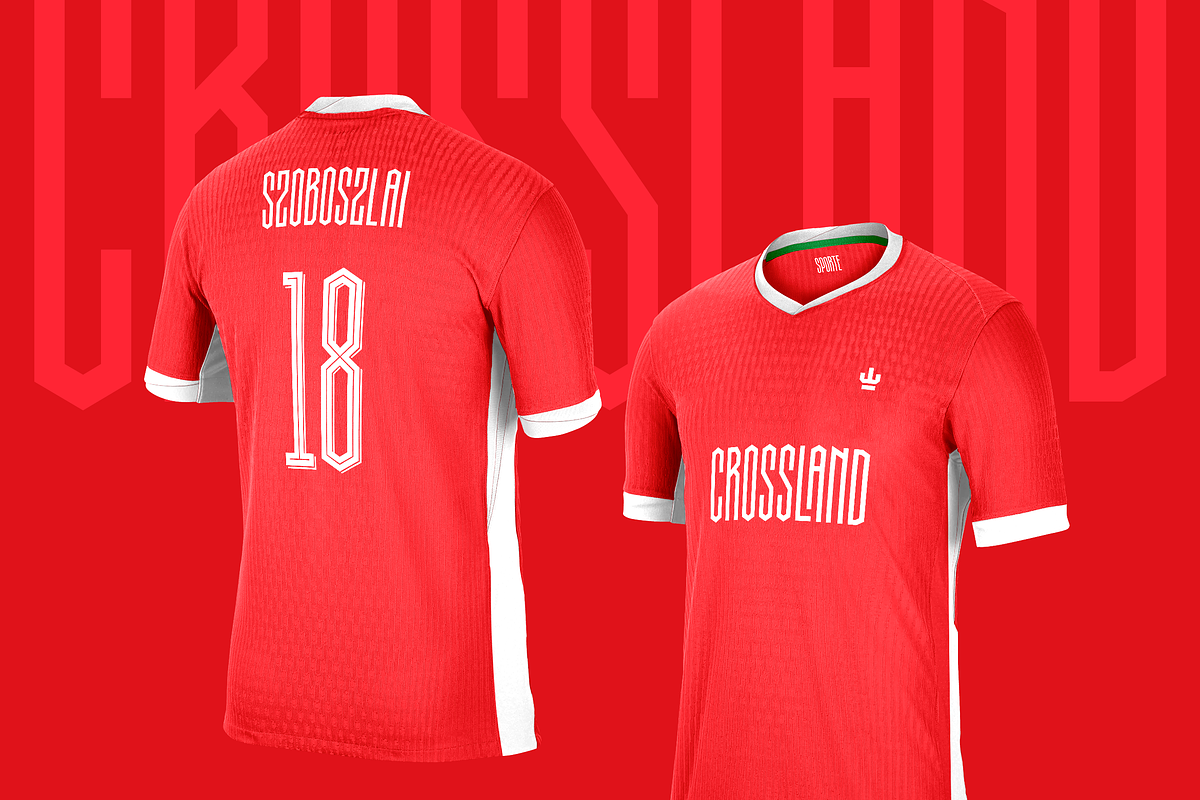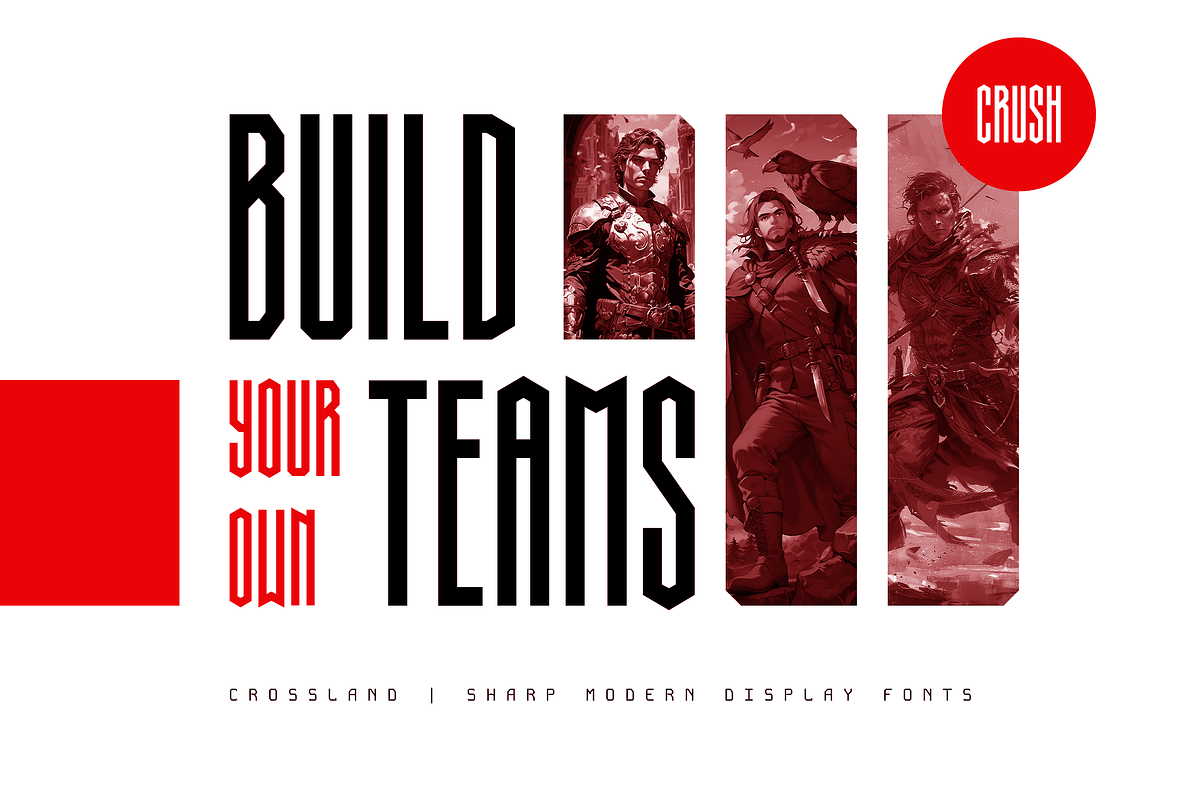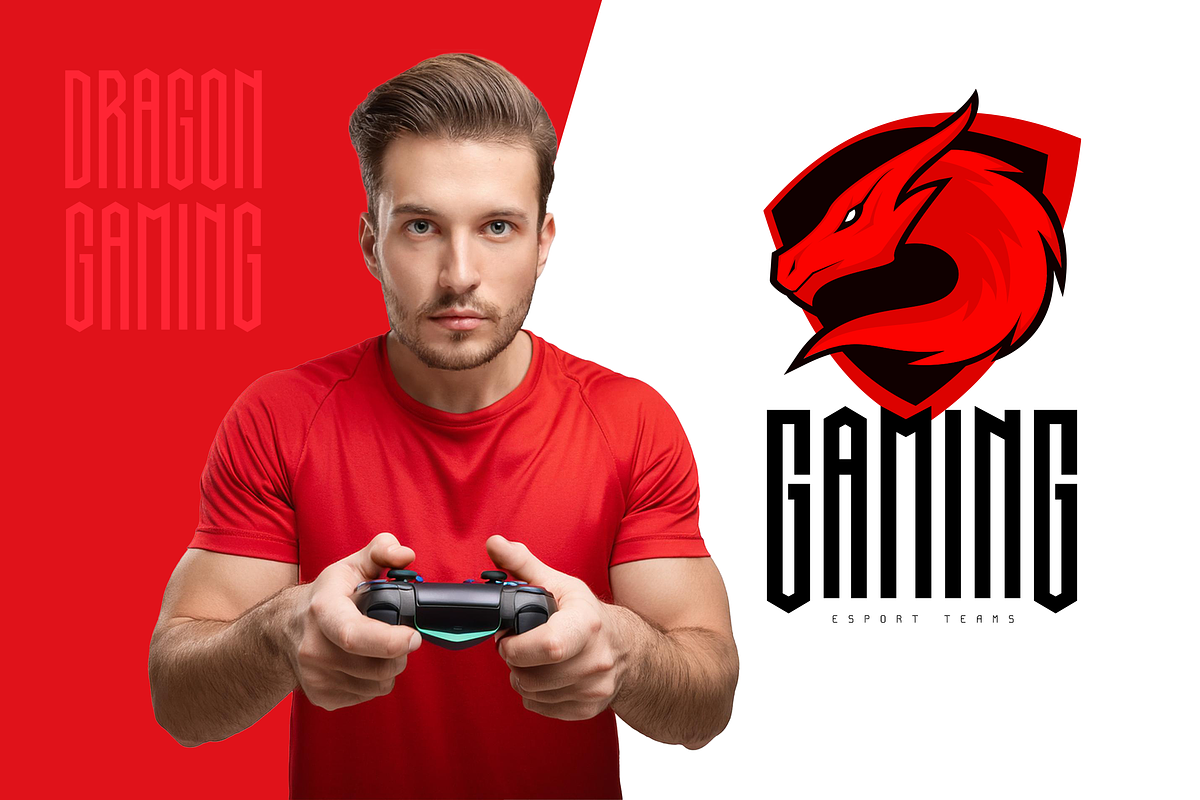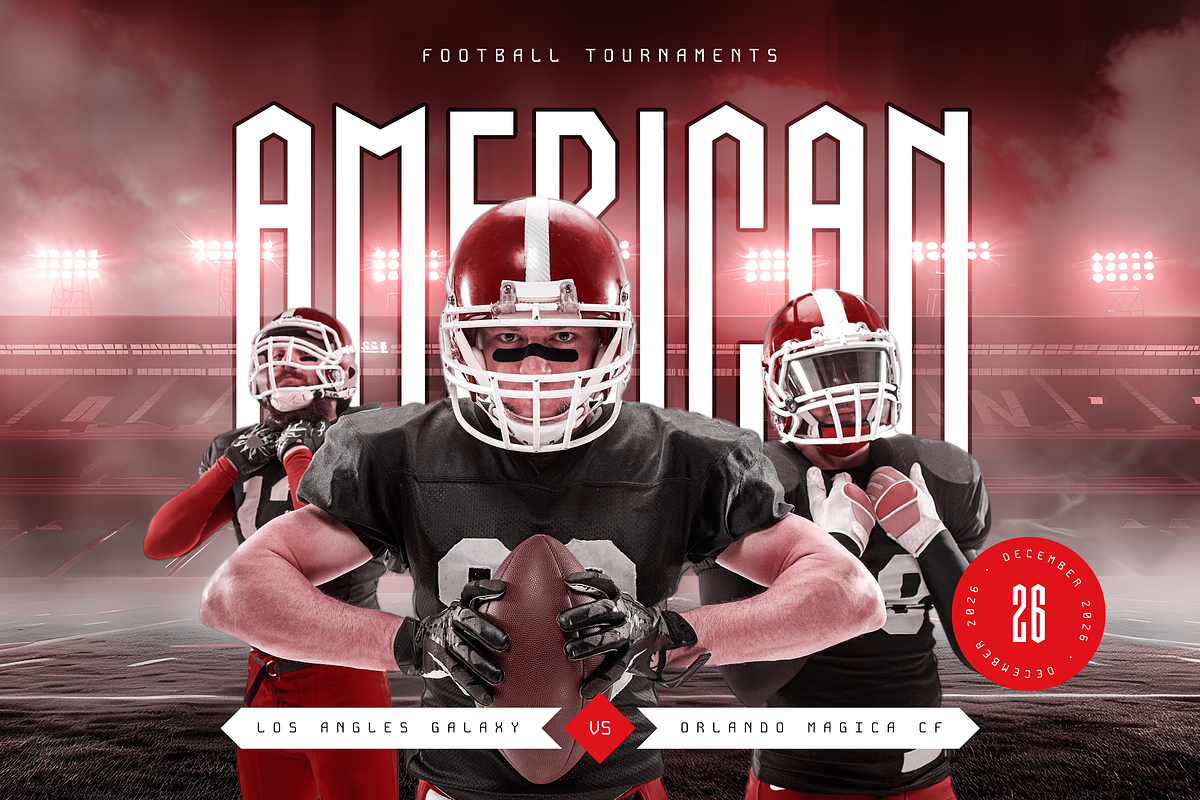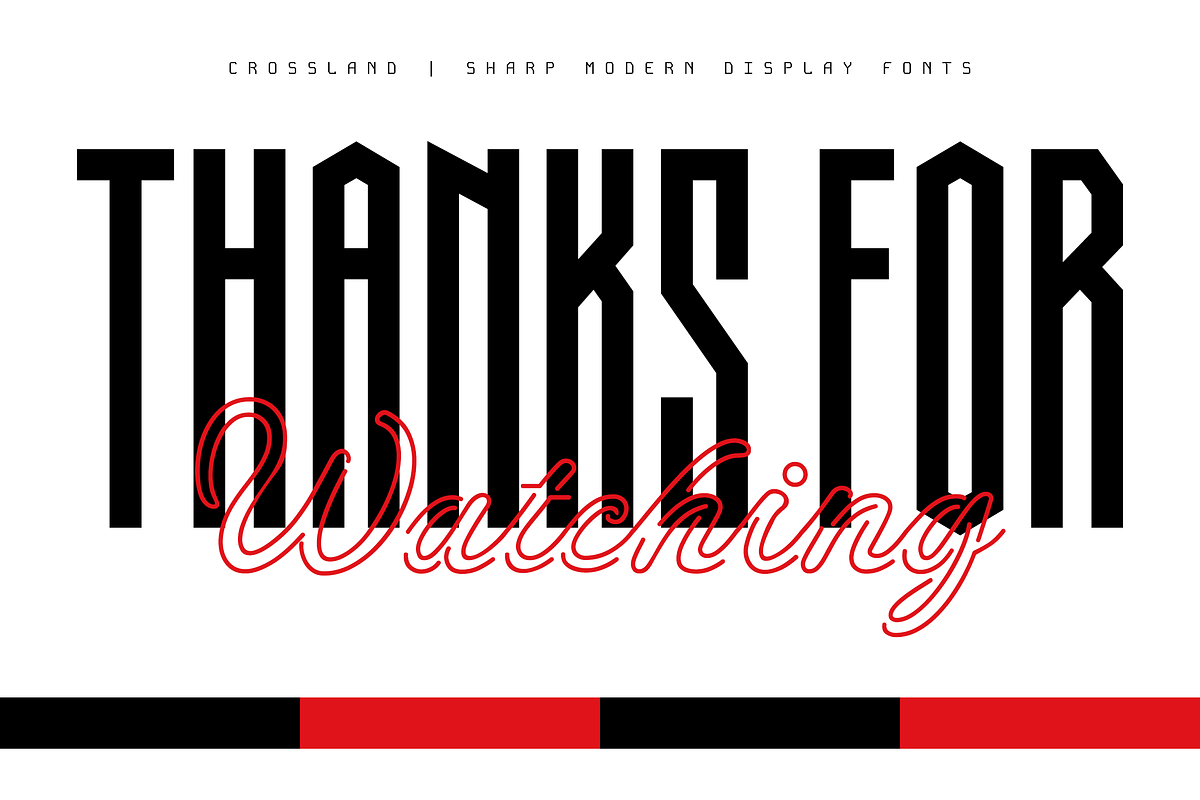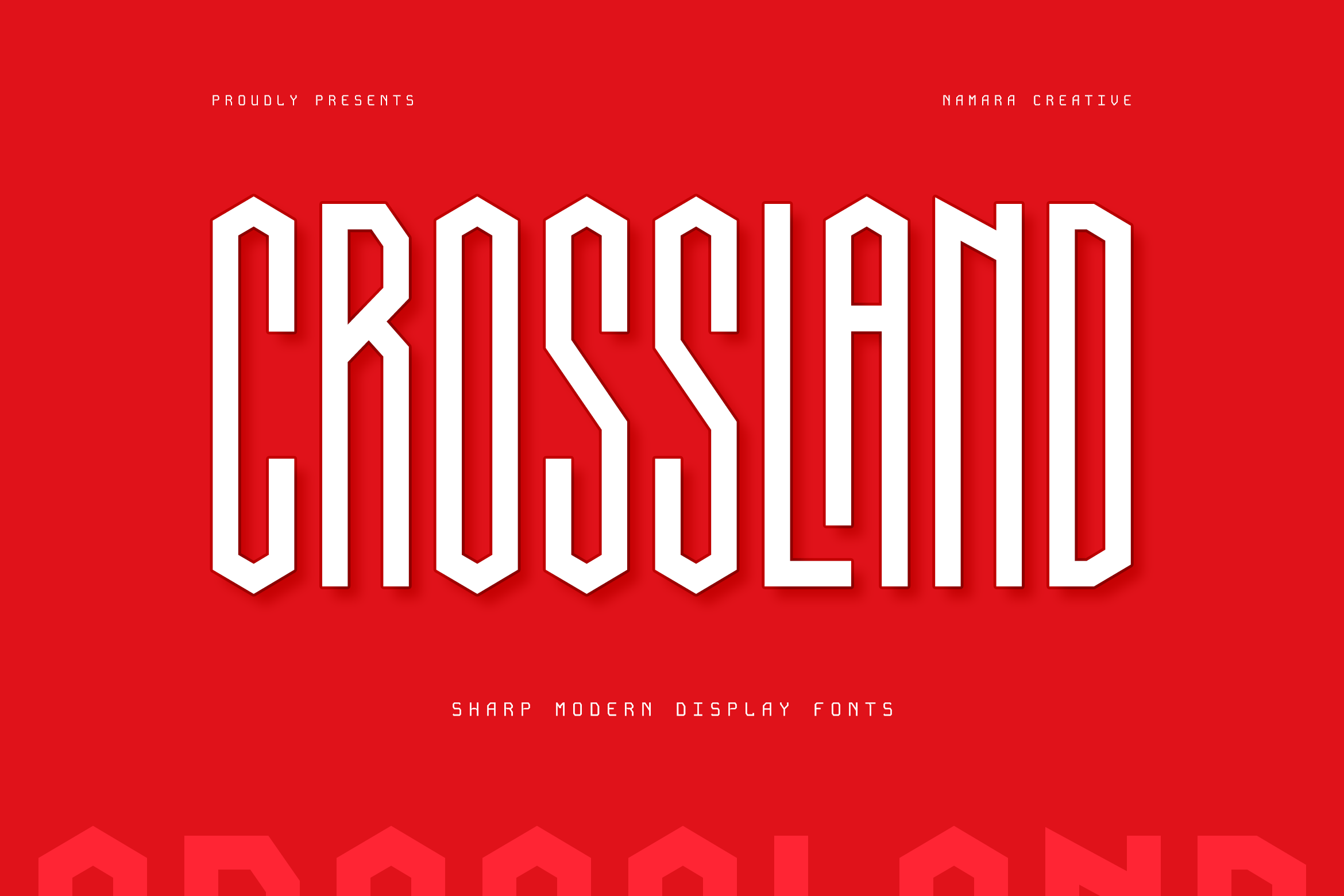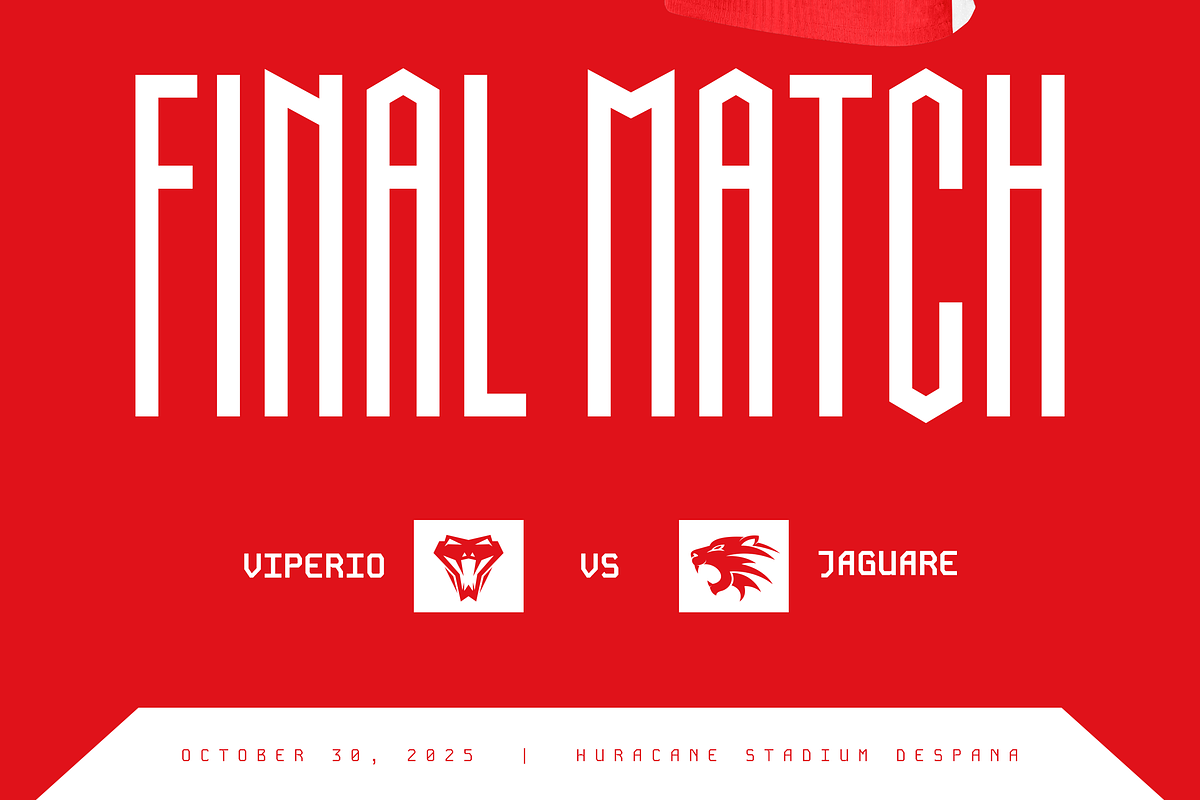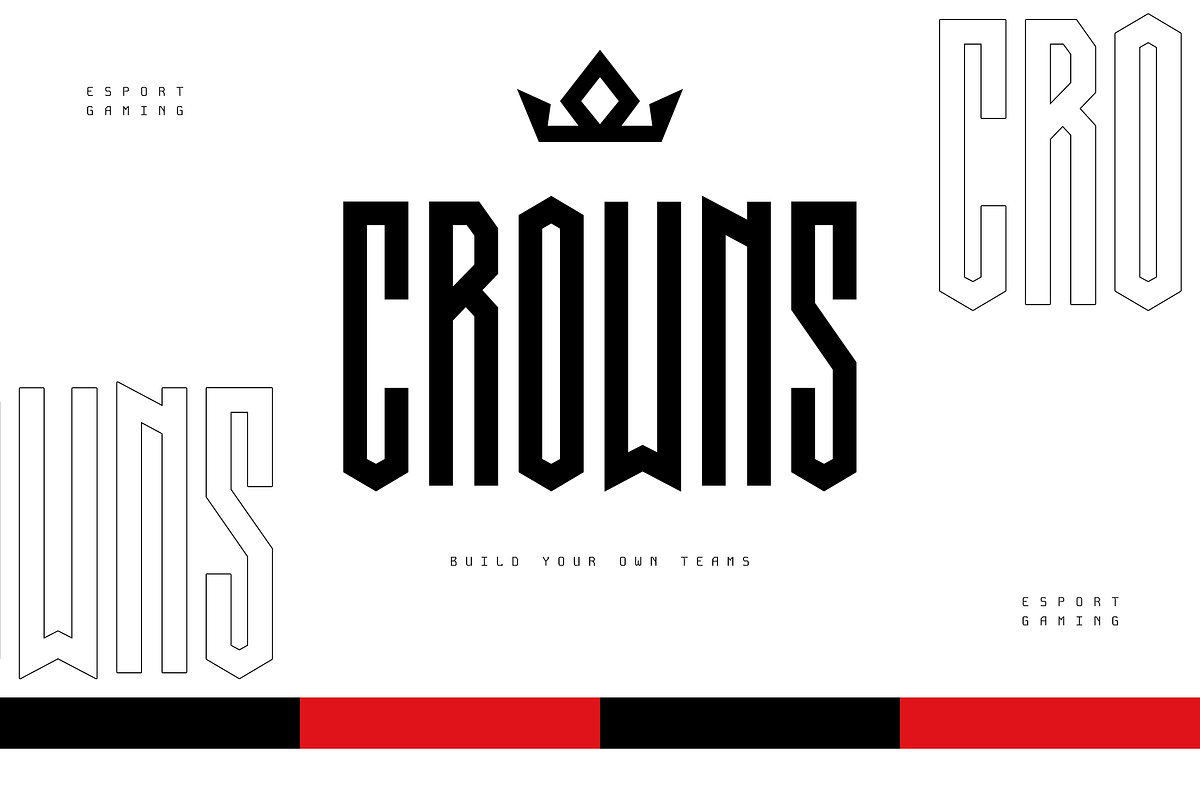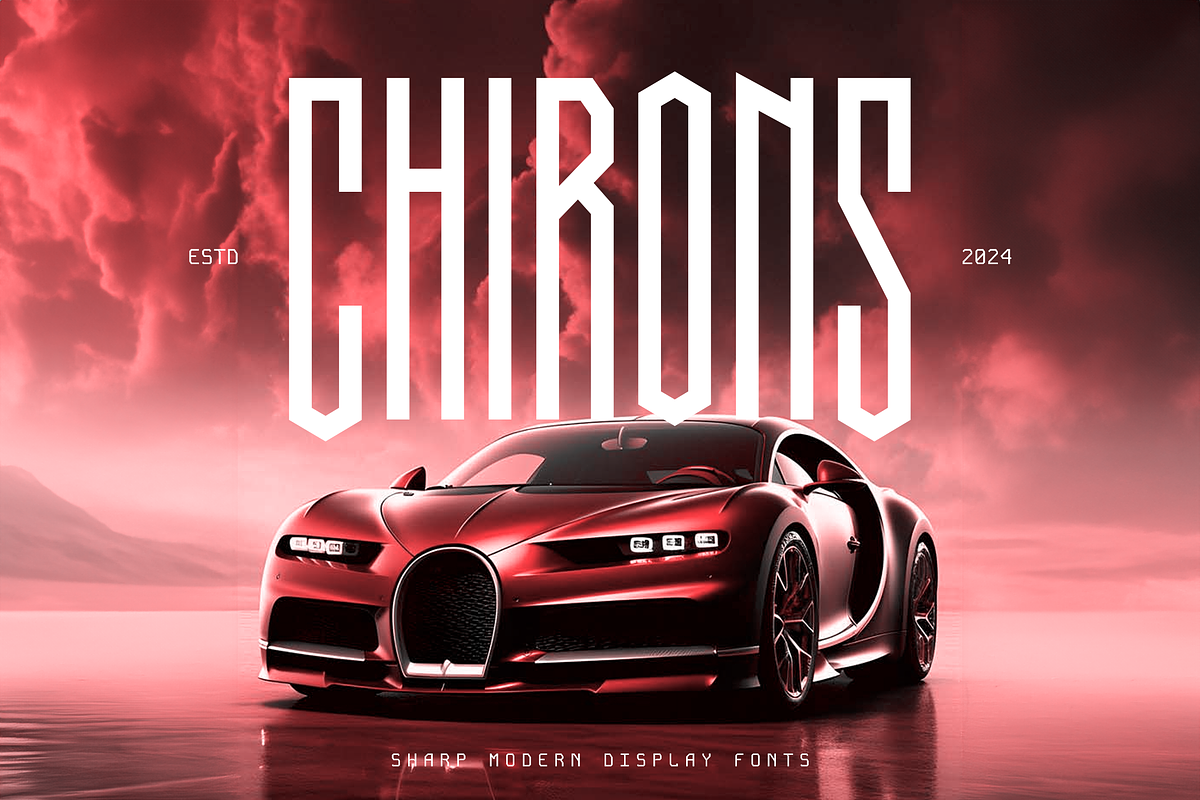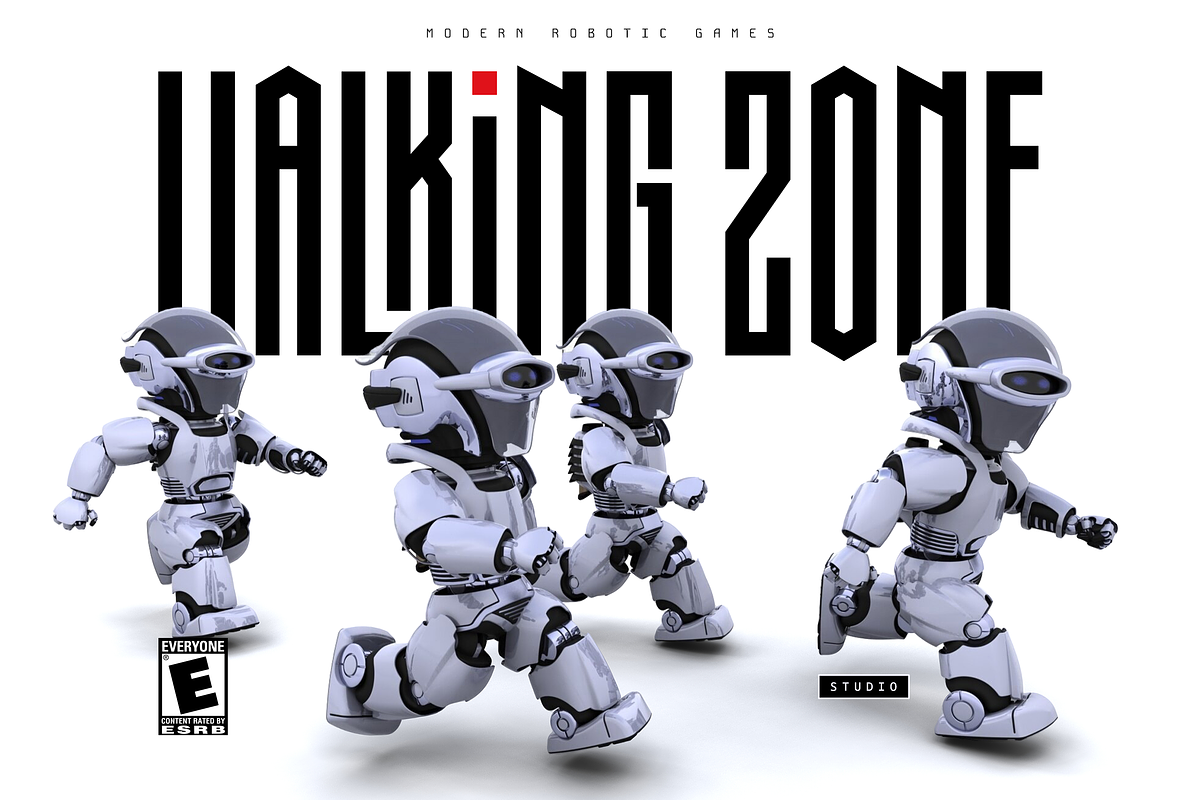
Crossland - Display Font
Dynamic typeface designed for attention-grabbing headlines, sports branding, and any context requiring an energetic, commanding presence. Vertically stretched, giving the font a sleek, modern look with a sense of speed and dynamism.
- Tall Sport & Techno Cutting Edge with Futuristic Tech Looks.
- Alternates, Ligatures & Multilingual Support